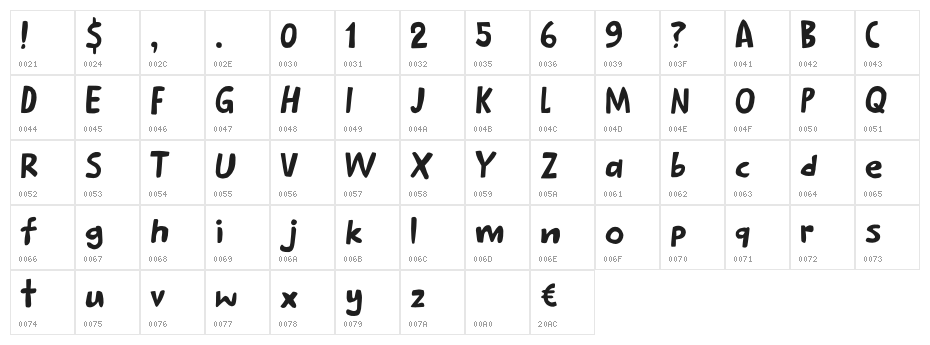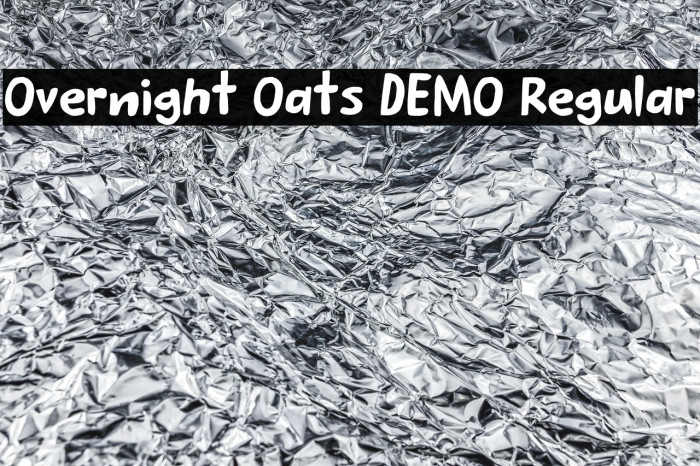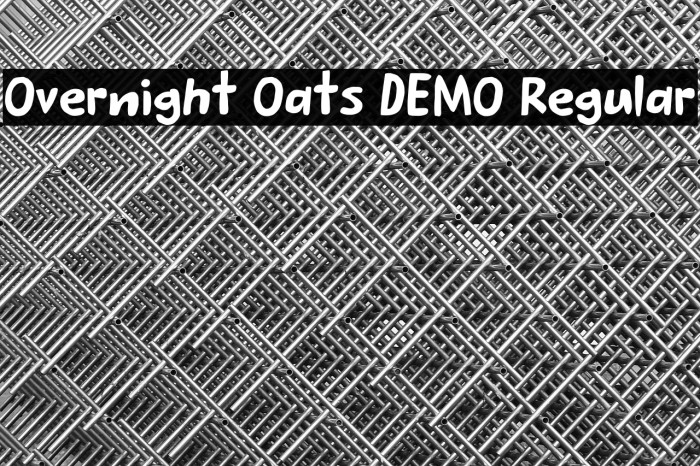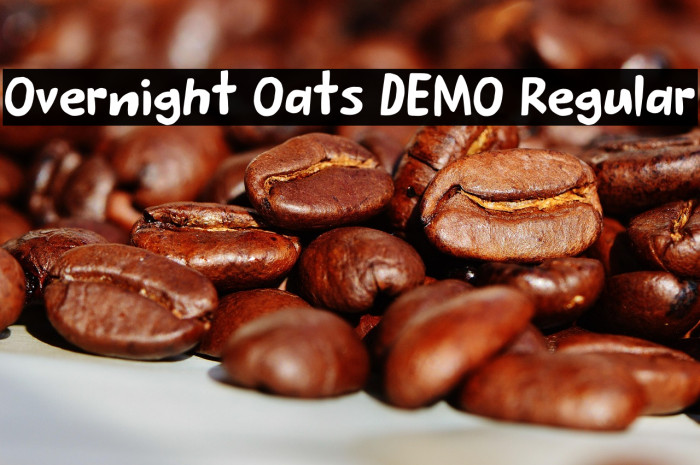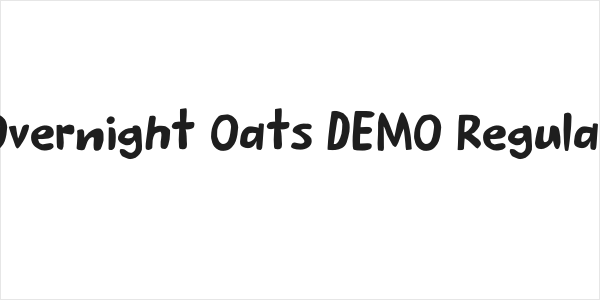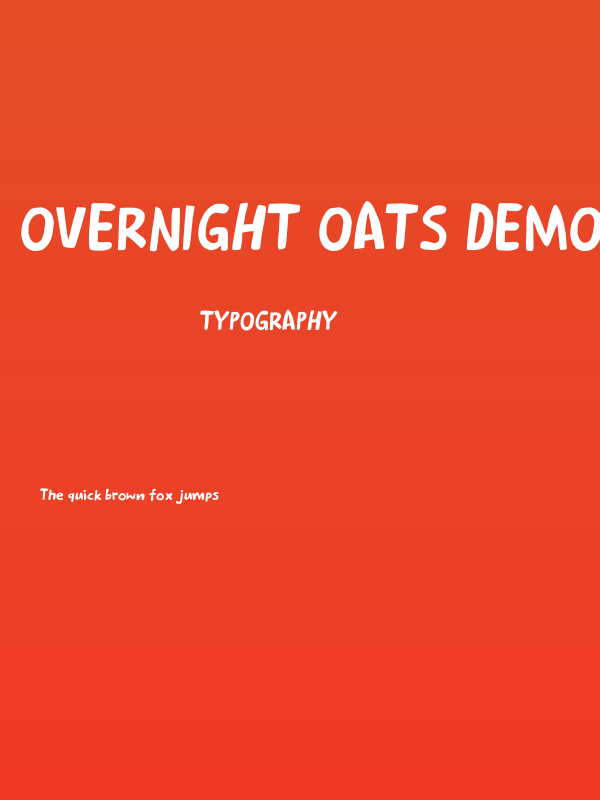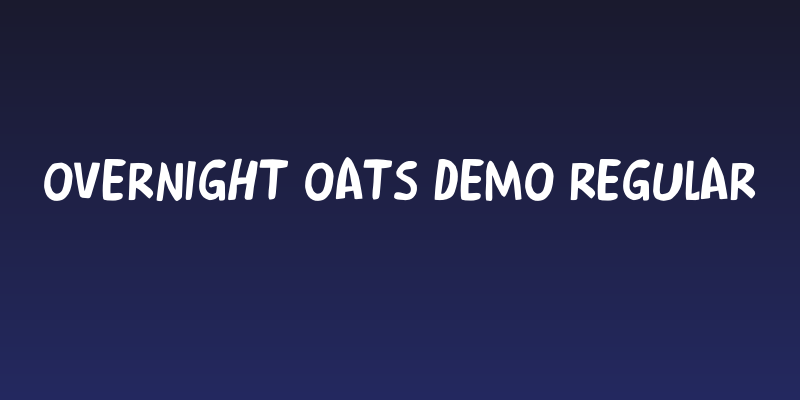
Overnight Oats DEMO Regular Font
This playful and bold font features a hand-drawn style with rounded edges and a slightly irregular baseline, giving it a casual and friendly appearance. The uppercase and lowercase letters maintain a consistent thickness, contributing to a cohesive look. The numbers and special characters are designed with the same playful aesthetic, making them ideal for creative projects. The font includes unique glyphs like a cup with the word 'OATS', adding a whimsical touch. Its overall style is informal and approachable, suitable for projects that require a fun and engaging typeface.
Proposed ProjectsIdeal for children's books, playful branding, casual invitations, and creative posters.